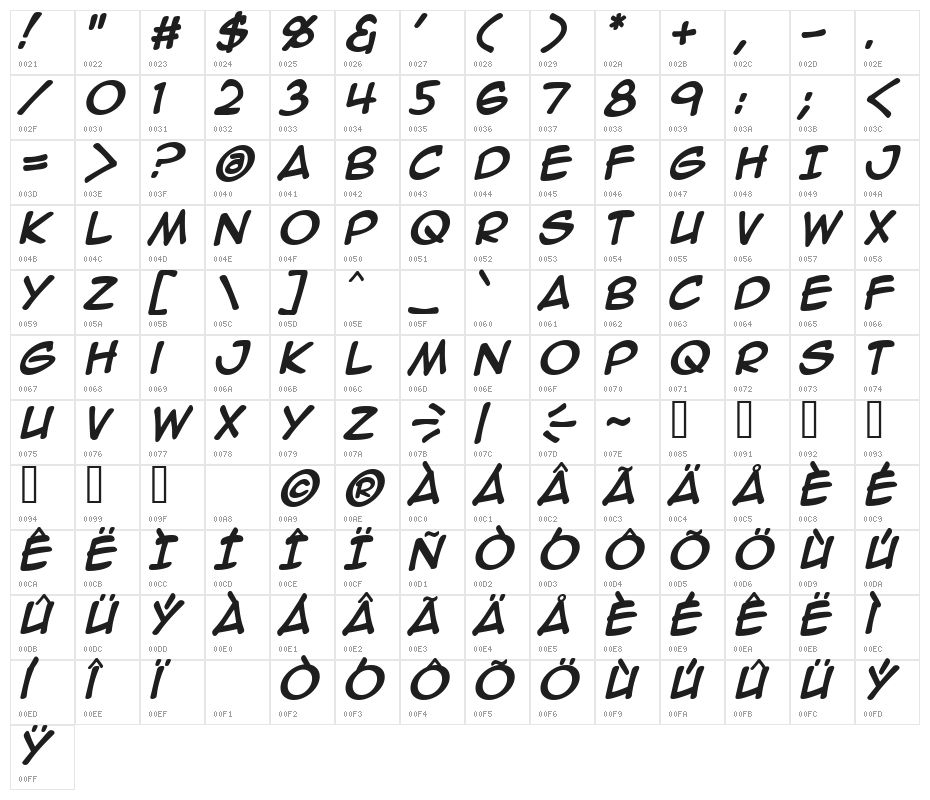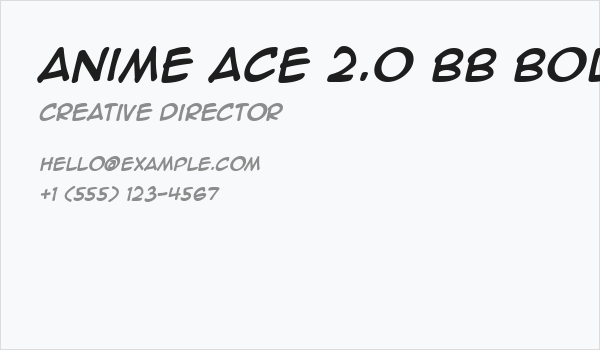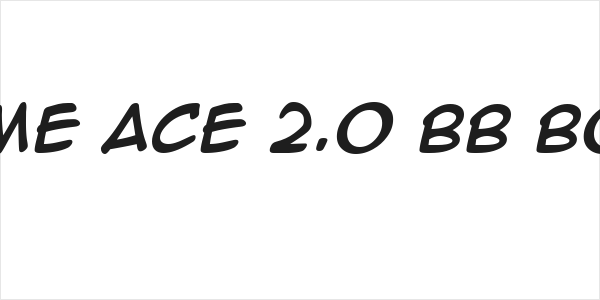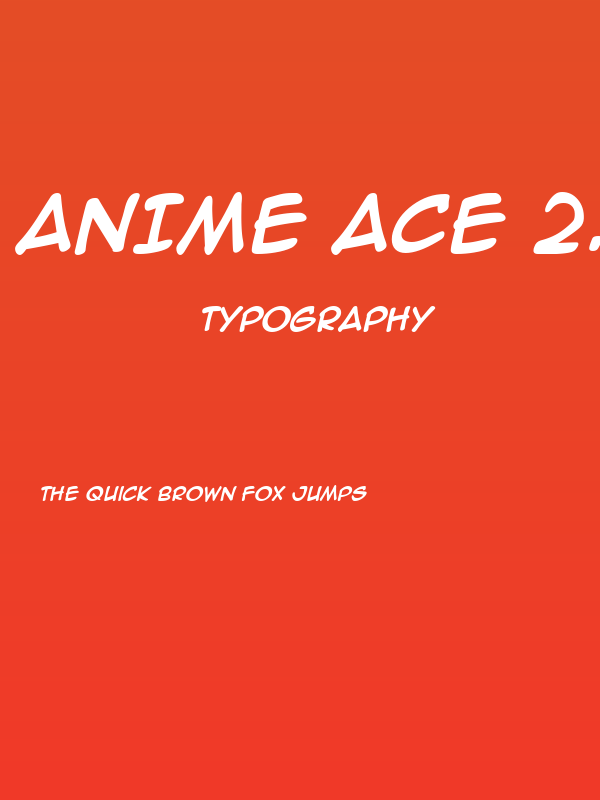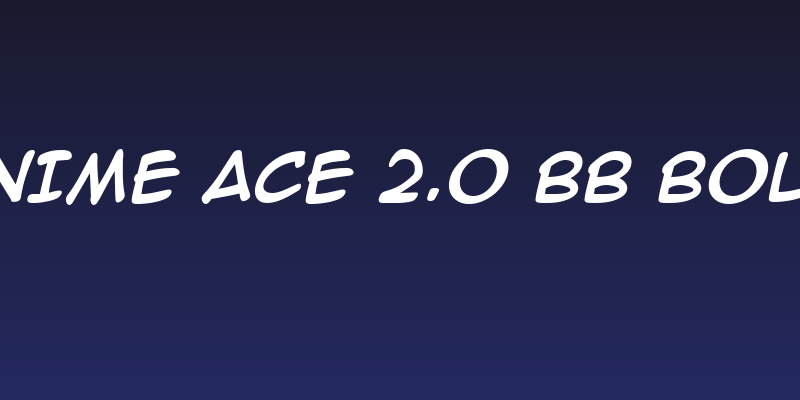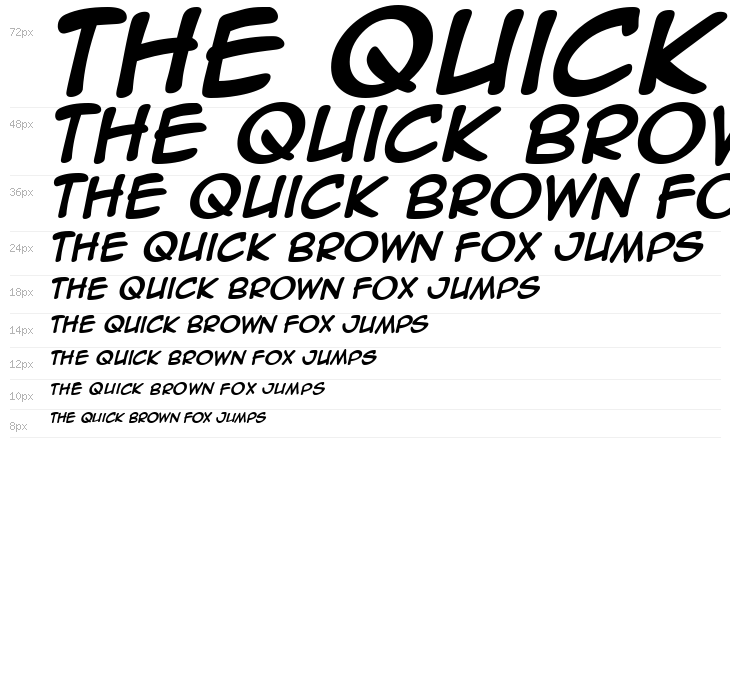
Anime Ace 2.0 BB Bold Font
Anime Ace 2.0 BB Bold Description
This font features a playful and dynamic style with a handwritten appearance. The characters are bold and slightly italicized, giving them a sense of motion and energy. The strokes are rounded and smooth, contributing to a friendly and approachable look. The letters are well-spaced, ensuring readability while maintaining a casual and informal vibe. This font is versatile, suitable for various creative projects that require a touch of personality and flair.
| Proposed Projects | Ideal for comic books, children's books, playful branding, and casual invitations. |